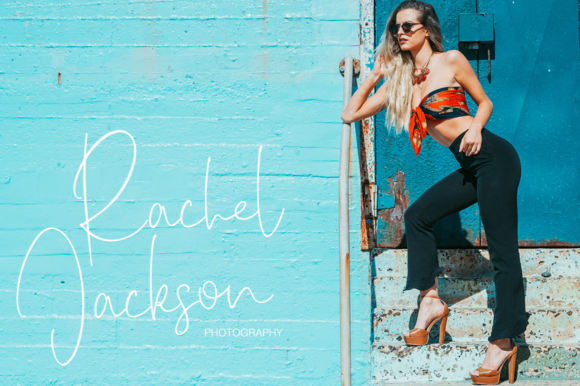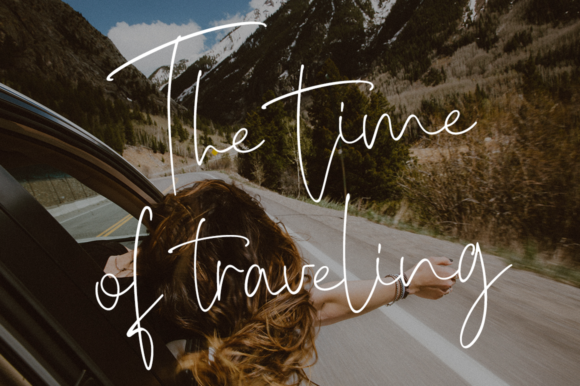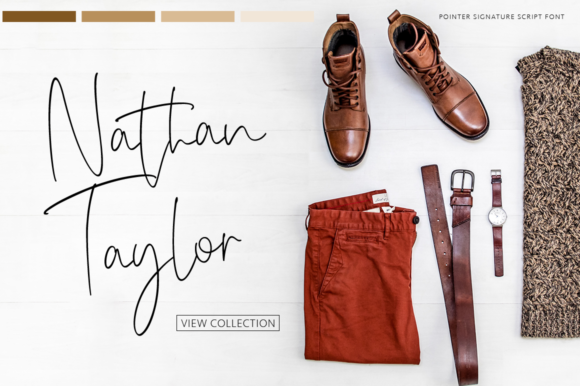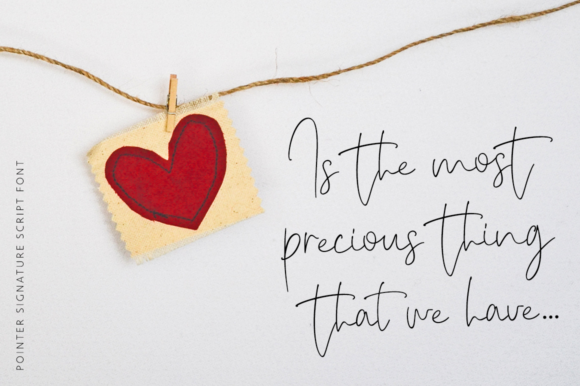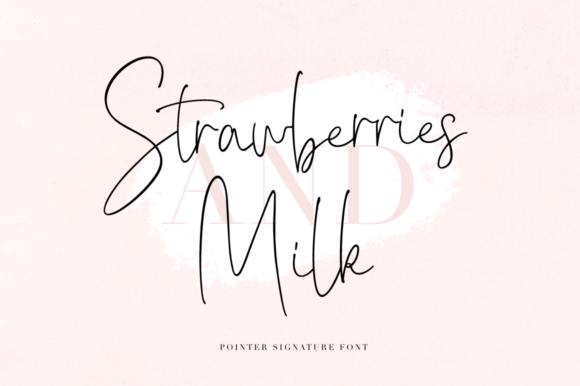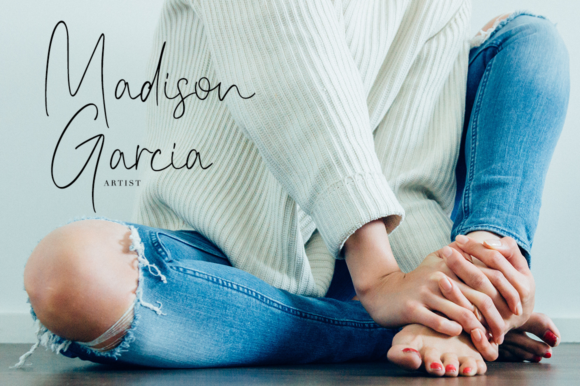
Pointer Font
About Pointer Font
The Pointer is a fresh and modern calligraphy font. It’s ideal for branding and decorating your projects with an unique touch.